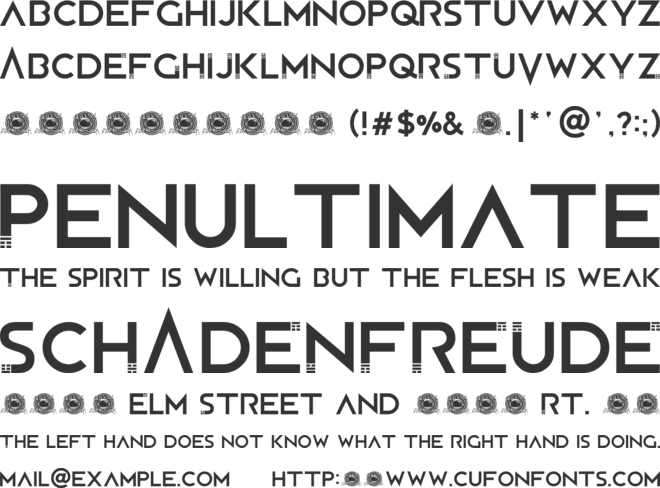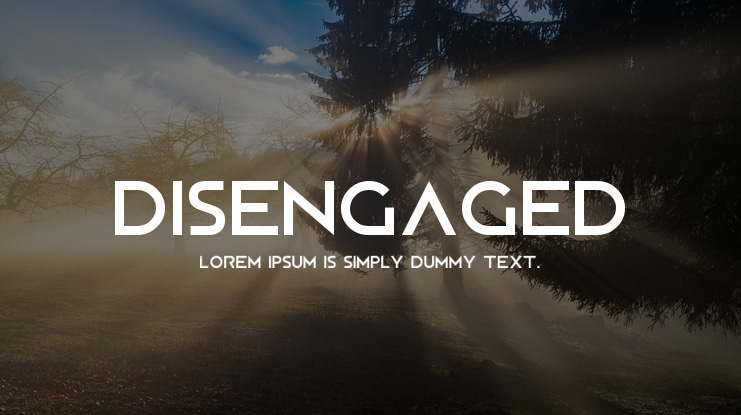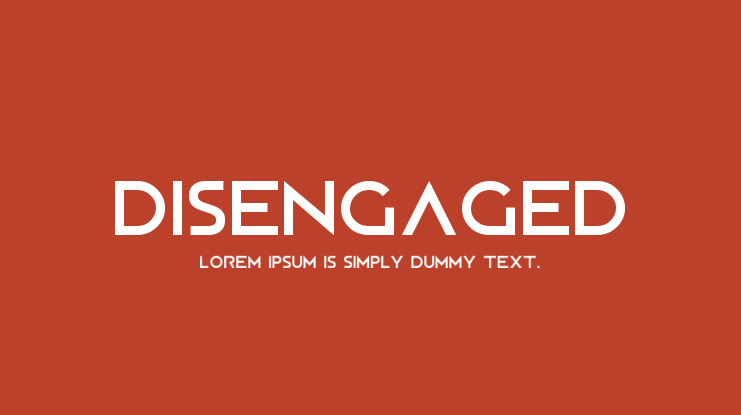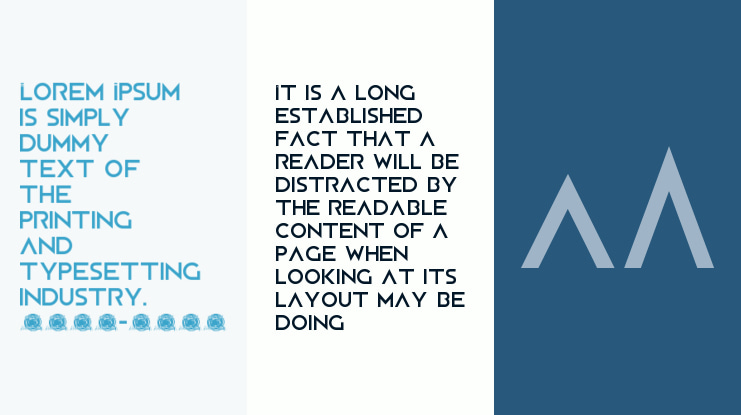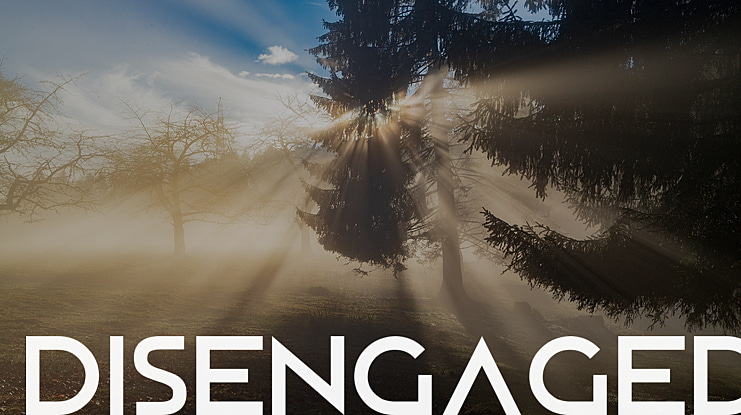
"Disengaged" is the font inspired by American rock artist Marilyn Manson, from his eighth studio album 'Born Villain'. The font contains seven I Ching symbols on the end of each letter. To break down the symbols, the symbols used are "Gen" (Mountain), "Xùn" (Wind), "Kan" (Water), "Qián" (Heaven), "Dui" (Lake), "Li" (Fire), "Zhen" (Thunder), and "Kun" (Earth). With the addition of an extra symbol, namely the double cross (or dubbed as the "Celebritarian Cross") which has been prevalent to Manson's work throughout his career. The use of I Ching symbology is used to represent how weakness is turned into strength. Manson's intention was not to portray a weakness as a flaw, but a reason to grow - similarly to the album's use of the word 'Villain', wherein Manson does not refer to Villain in the traditional sense of 'bad-guy', but rather a catalyst for change.